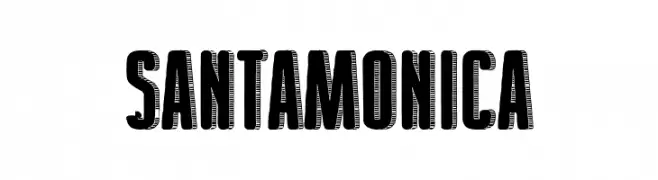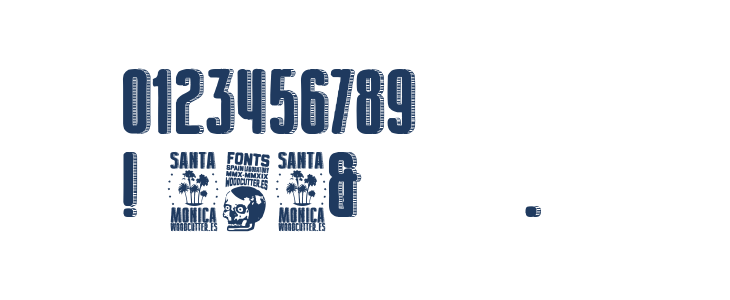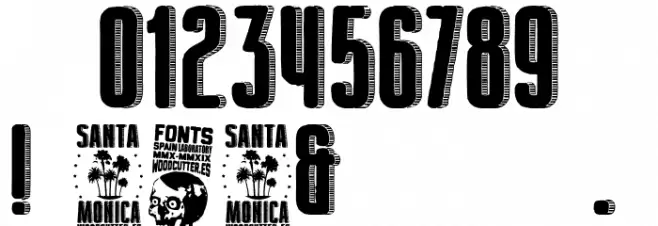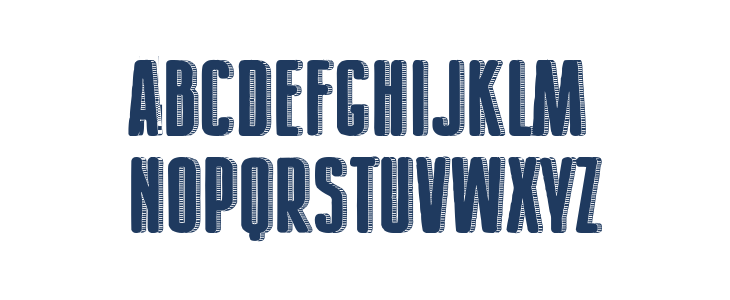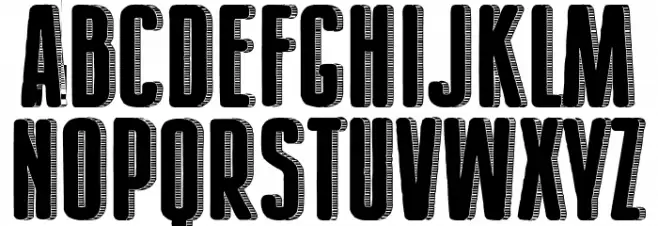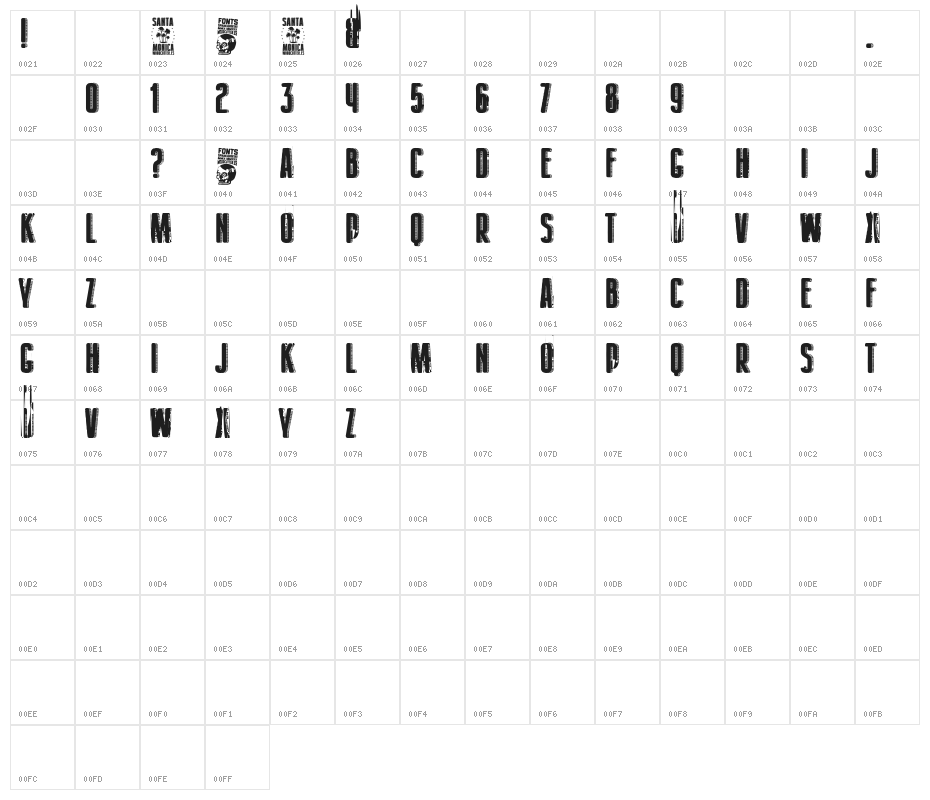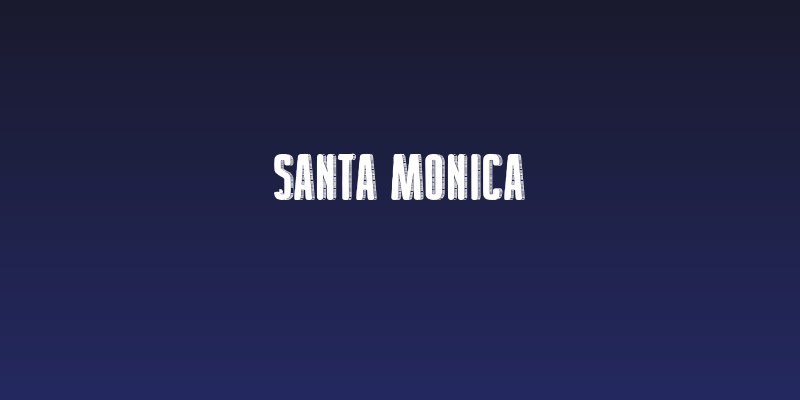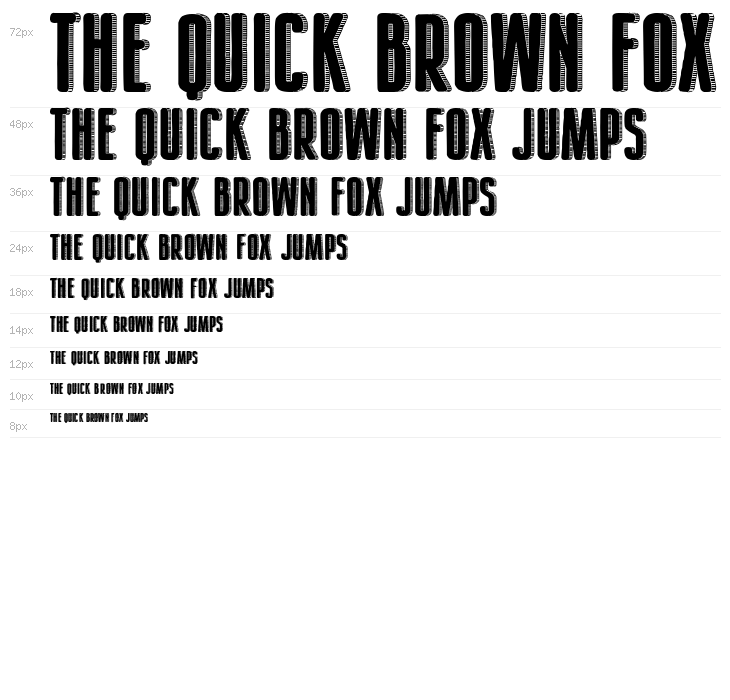
Santa Monica Font
Santa Monica Description
A bold, condensed sans-serif font with a distinctive shadowed or striped effect, featuring tall uppercase letters, uniform stroke width, and playful, decorative styling. The characters are tightly spaced and have a strong vertical emphasis, making them highly eye-catching.
| Width | Condensed |
| Overall Style | Decorative, Vintage, Playful |
| Use Case | Headlines, Posters, Logos, Signage |
| Proposed Projects | Posters, event flyers, branding, signage, vintage-themed designs, and logos. |